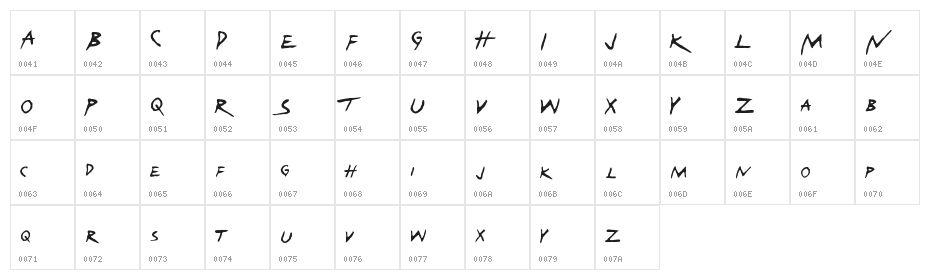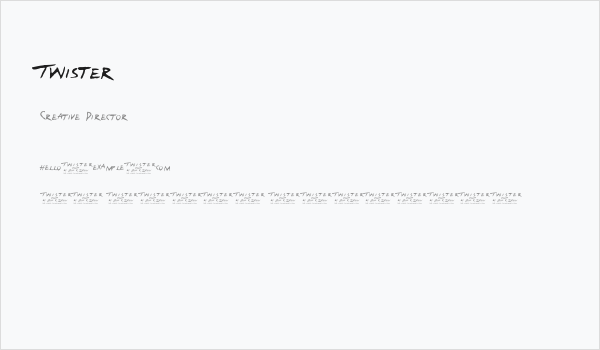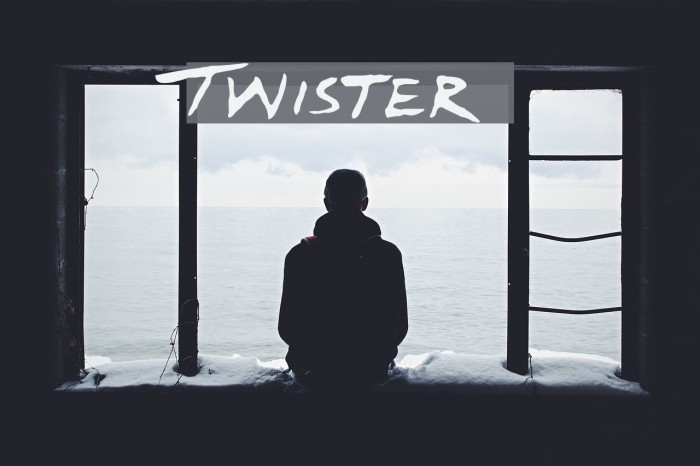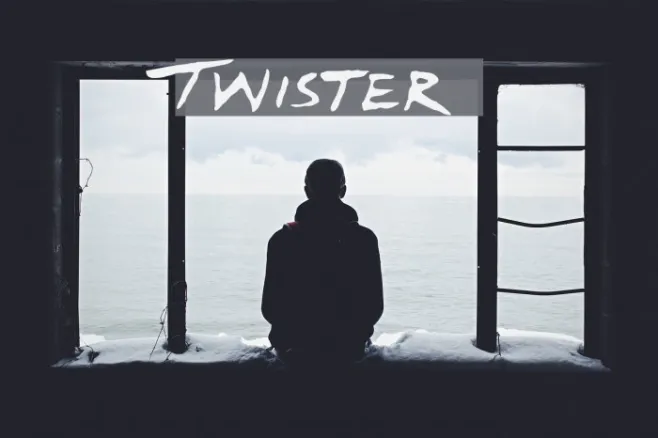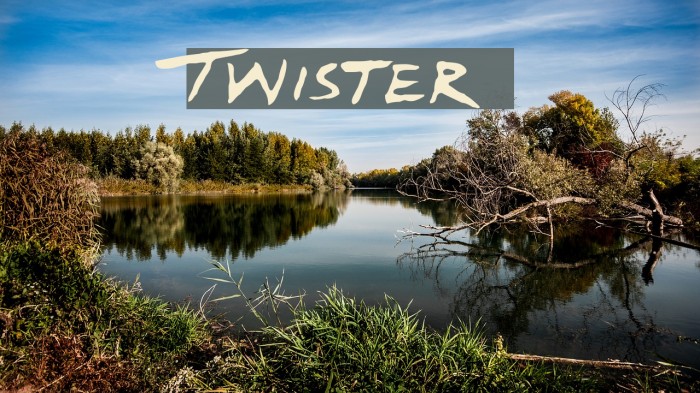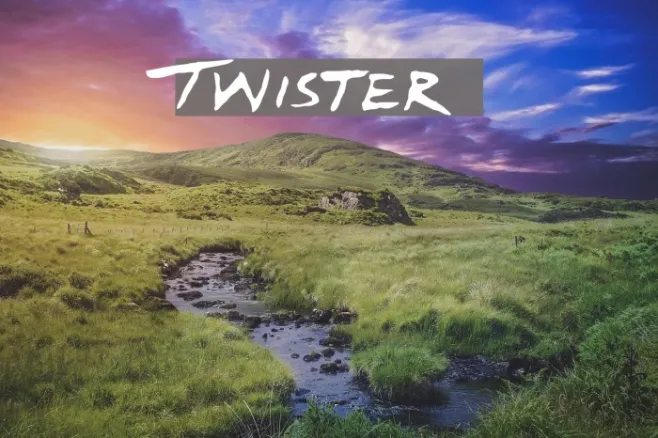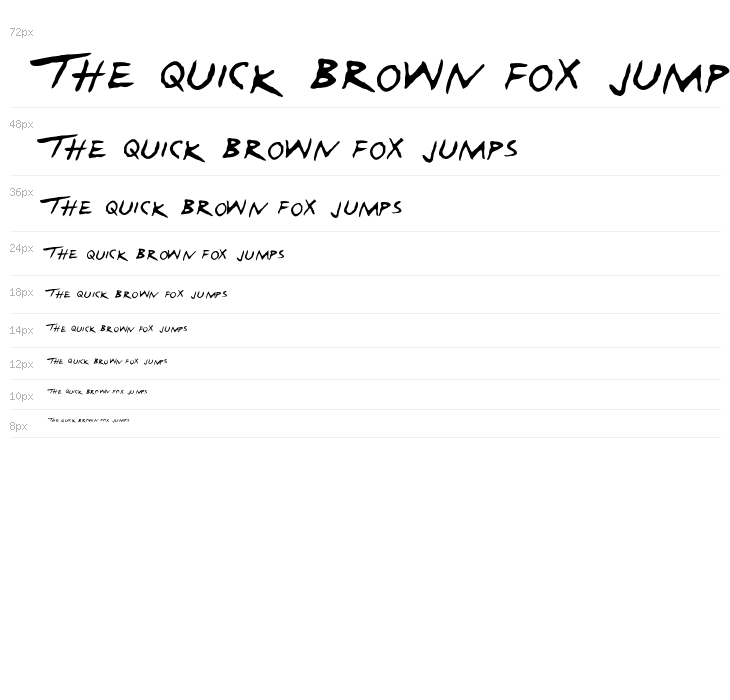
Twister Font
Twister Description
This font features a dynamic and energetic style, characterized by its irregular, hand-drawn appearance. The strokes are bold and expressive, with varying thickness that adds a sense of movement and spontaneity. The letters have a slightly slanted orientation, enhancing the impression of speed and fluidity. The overall design is reminiscent of brush or marker writing, giving it a casual yet impactful look. It is suitable for projects that require a touch of creativity and informality, such as posters, artistic designs, or branding that aims to convey a lively and unconventional message.
| Proposed Projects | Ideal for posters, artistic designs, branding, and any project needing a creative, energetic touch. |